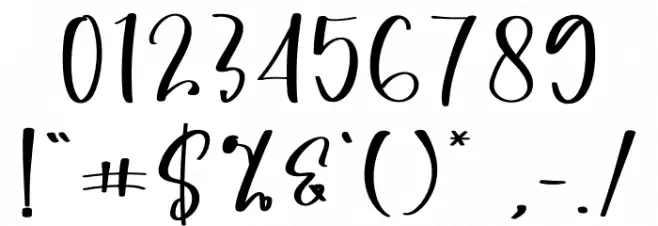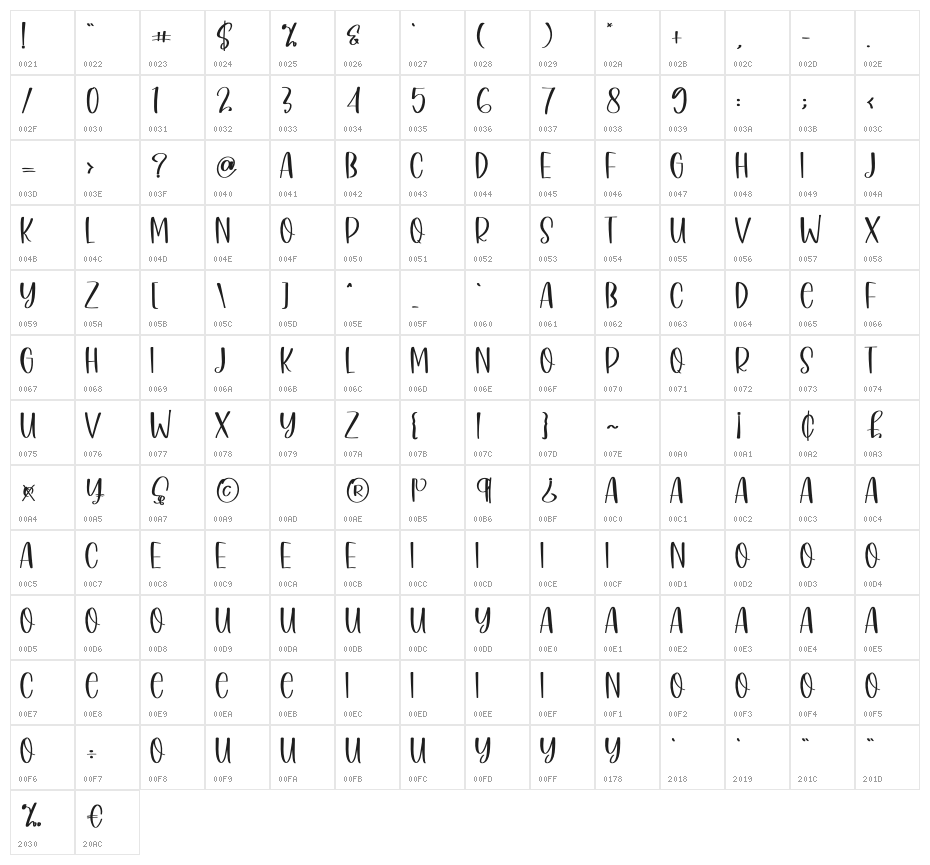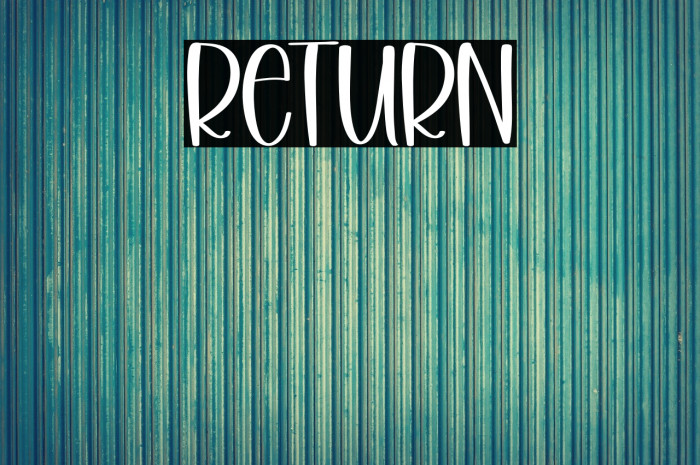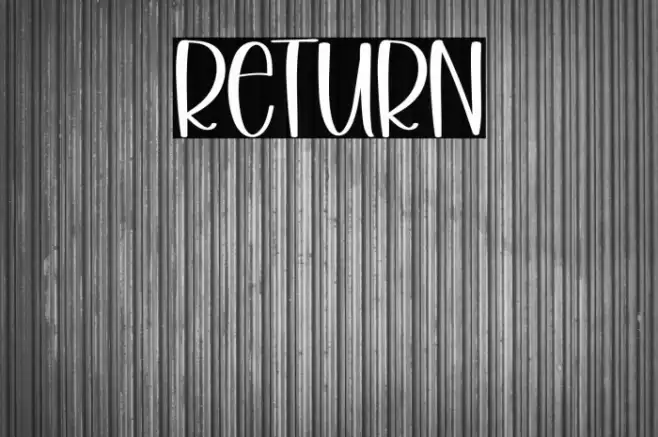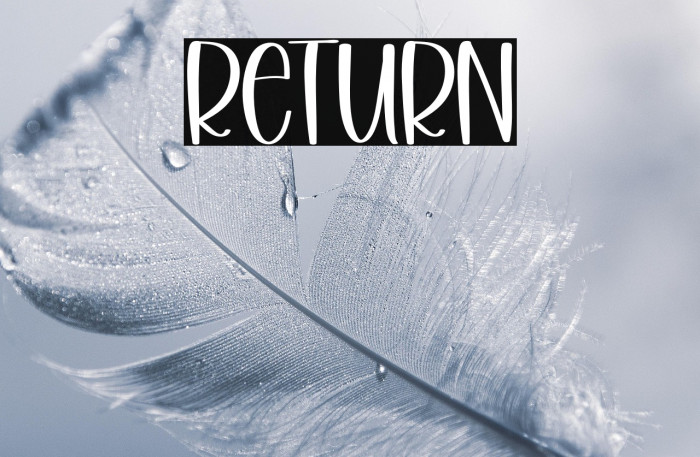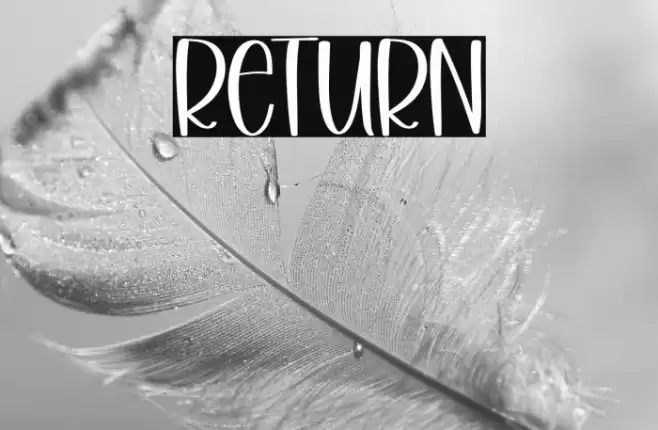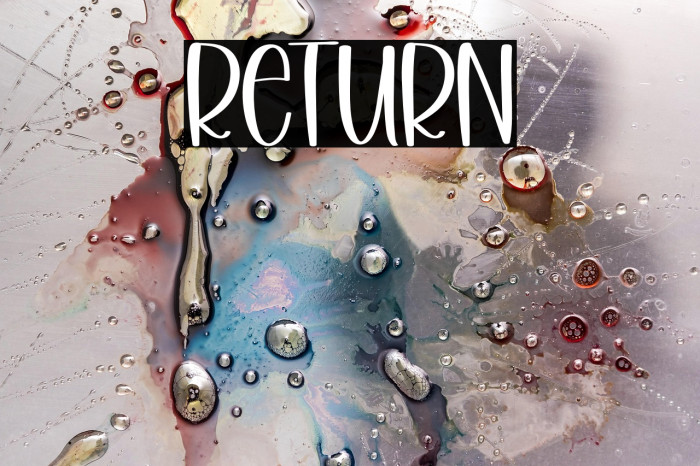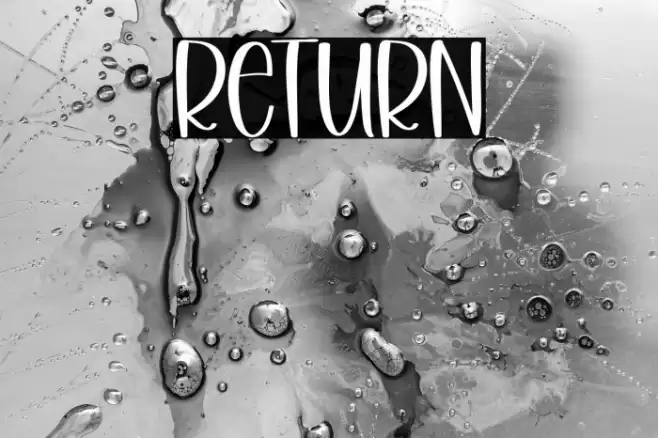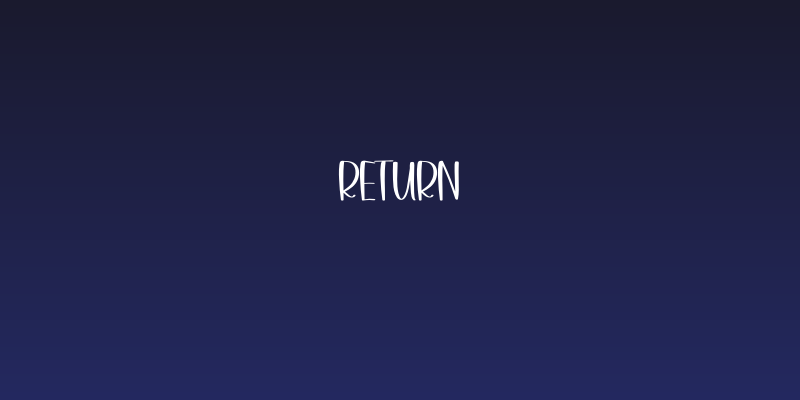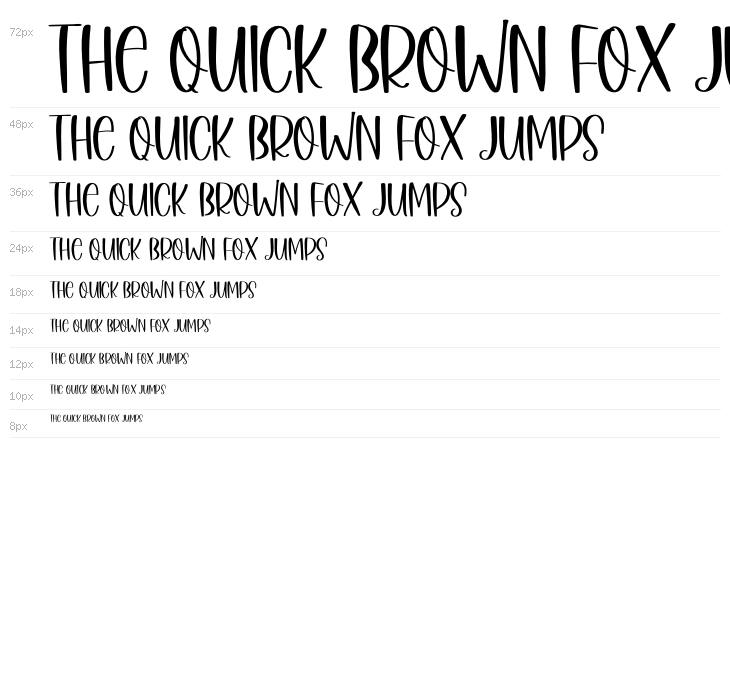
Return Font
Return Description
This font exhibits a playful and whimsical style with its tall, narrow characters and slightly irregular strokes. The uppercase and lowercase letters maintain a consistent flow, giving a hand-drawn appearance. The numbers and special characters follow the same playful aesthetic, making the font suitable for creative and informal designs. The strokes are smooth with a medium contrast, adding to its legibility while retaining a casual charm. This font is ideal for projects that require a touch of personality and creativity.
| Use Case | Headlines, Logos, Creative Projects |
| Proposed Projects | Ideal for greeting cards, children's books, playful branding, and creative posters. |